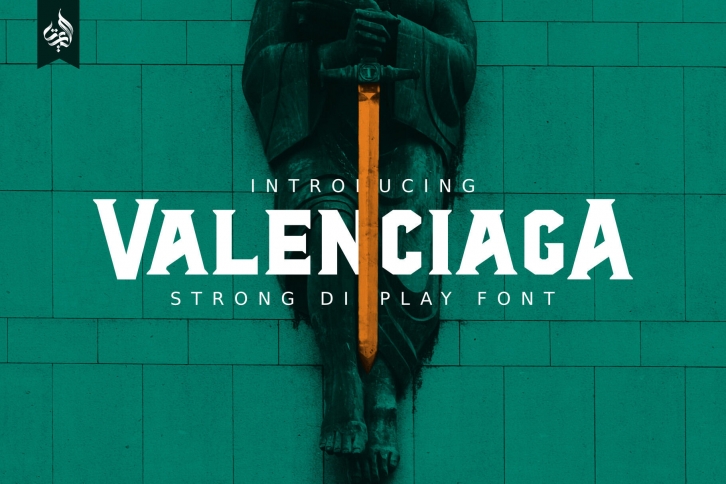
VALENCIAGA is a strong display font. Valenciaga is a fully-kerned titlecase display typeface built for strong design vibe. Valenciaga is raw and uncut with sharp terminals and serifs that give off an aggressive appearance. The difference in depth between the uppercase and lowercase, making Valenciaga very suitable to be the display font for your product packaging, logo, branding, and more!
This typeface features 180+ characters with some language adaption that is guaranteed to give your project a competitive edge.